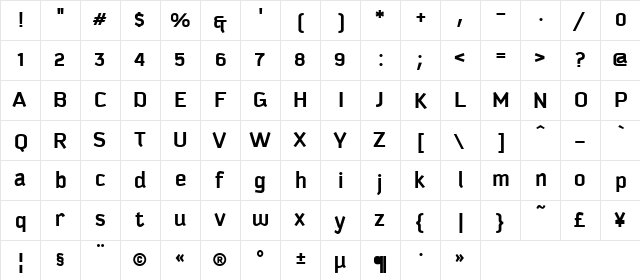
Kautiva Greek Bold Regular
| Foundry | SUDTIPOS. Disenada por Alejandro Paul y Alfredo Graziani. Todos los derechos reservados. Buenos Aires, Argentina |
Design Context for Kautiva Greek Bold Typeface
Kautiva Greek Bold offers clean, dependable letterforms without strong stylistic allegiance, making it a practical choice for designers who need flexibility. The heavy weight commands attention and anchors typographic hierarchies.